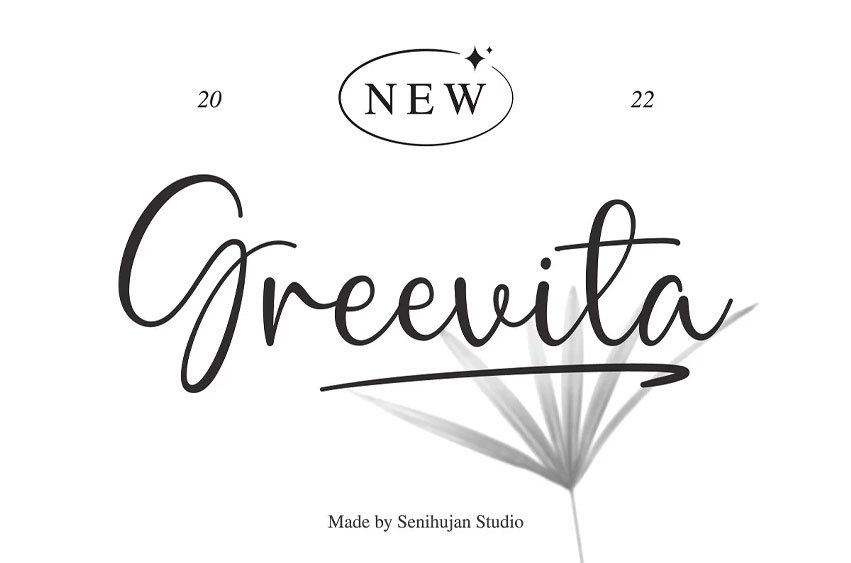
Greevita Font is a stylish modern handwritten script type with magical pressure. It’s designed and shared by Senihujan. Greevita font is great for album cover font, label font, website font, wedding or invitation font, and all aspects that require high-quality fonts, graphics on this font such as the character to kerning are perfect, and this font is suitable for use on all aspects.